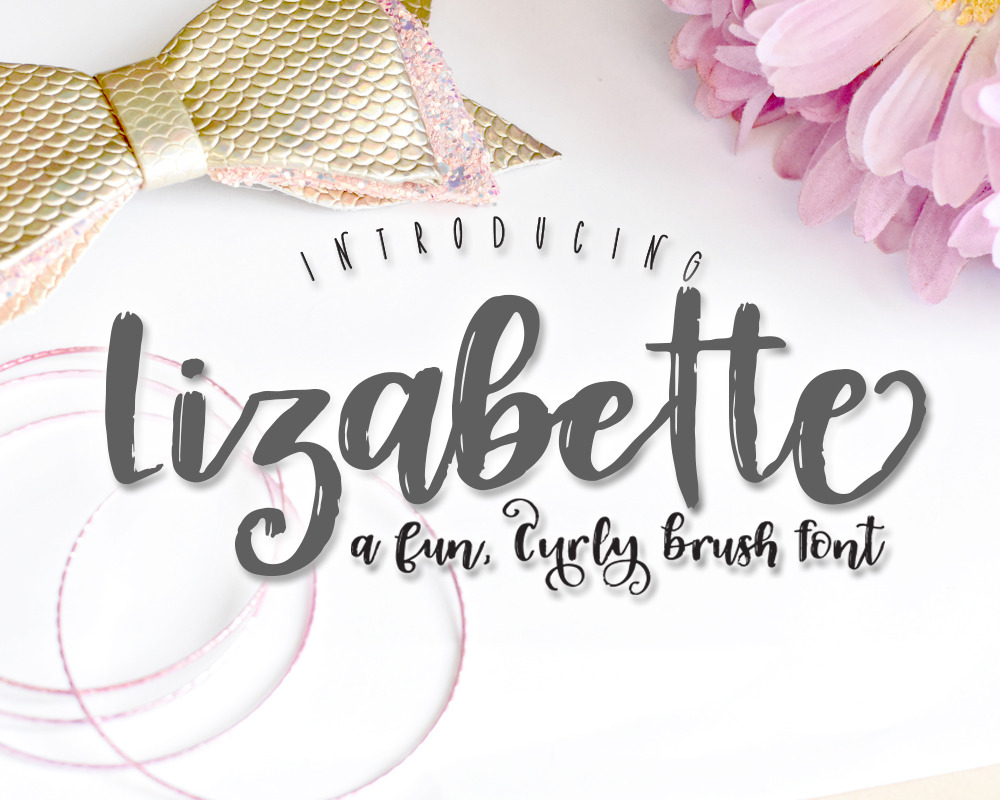
Lizabette Font
A hand-lettered, hand drawn brush style font, with lots of alternates so you can get that hand-lettered look & feel without even picking up your pencil!
• Completely versatile so you can create a few different styles, all while using one font